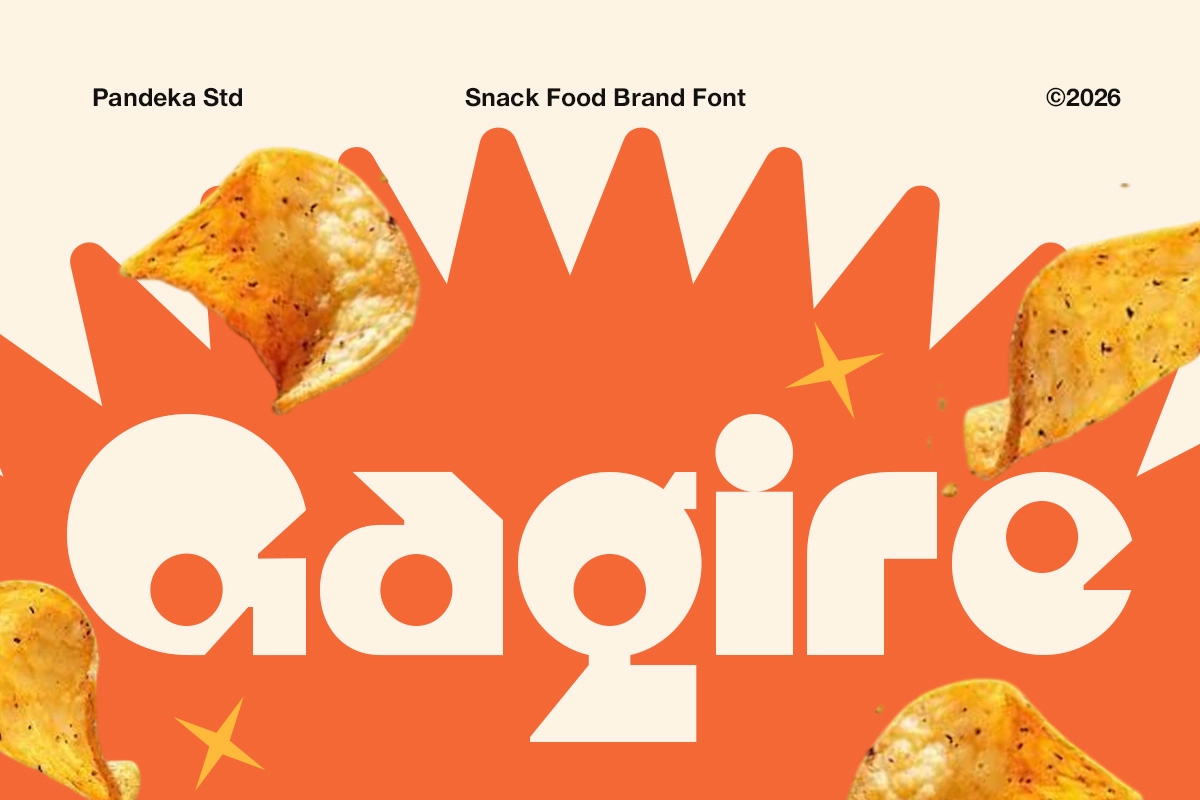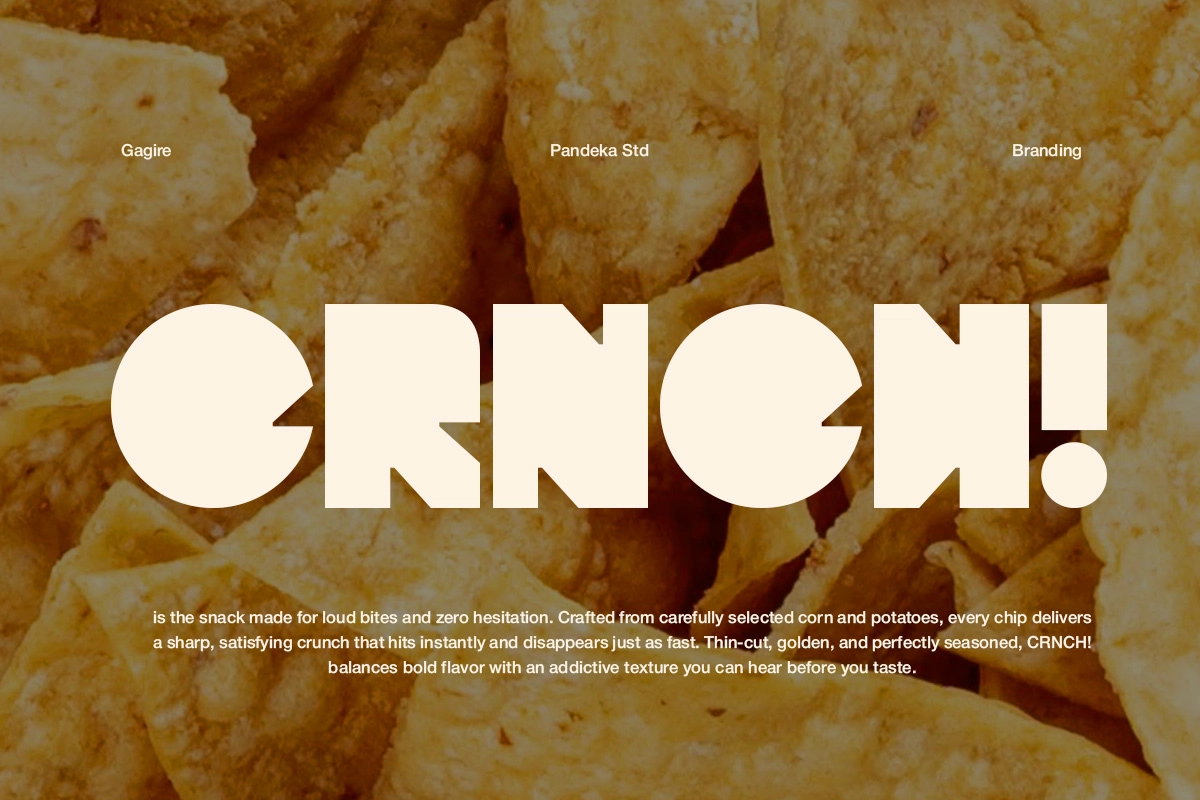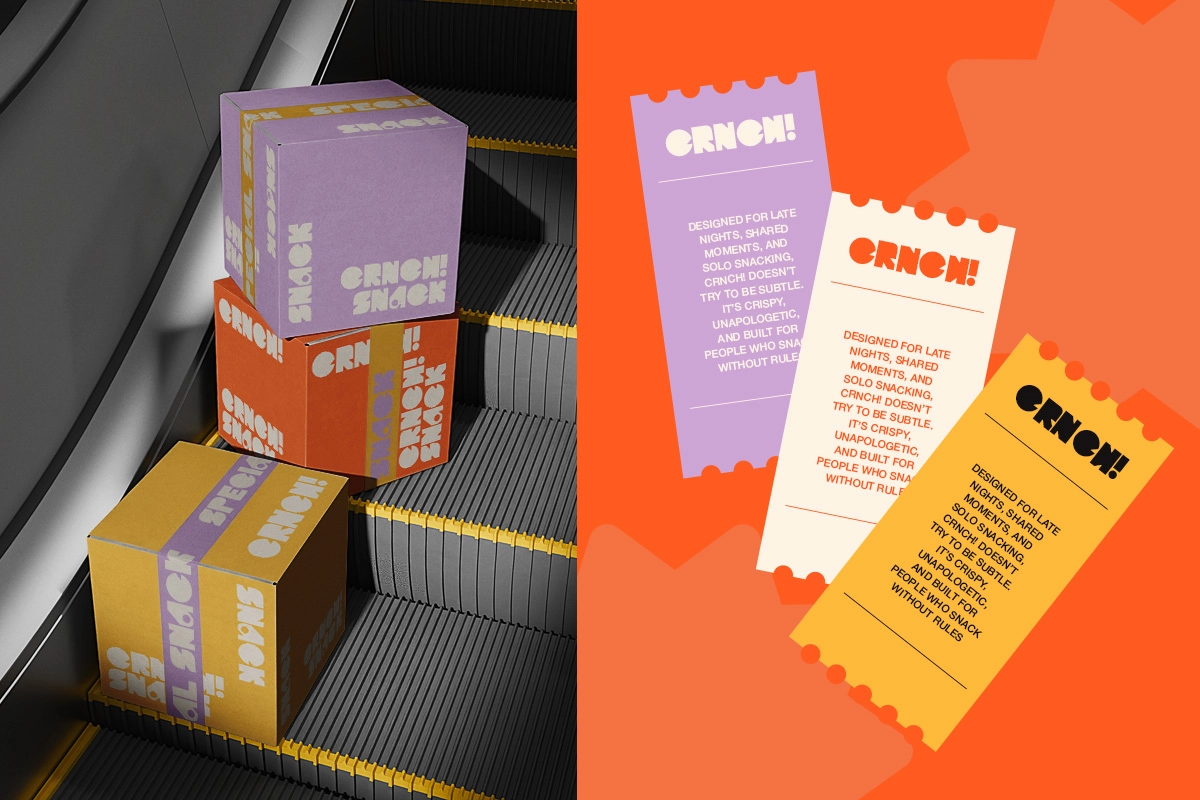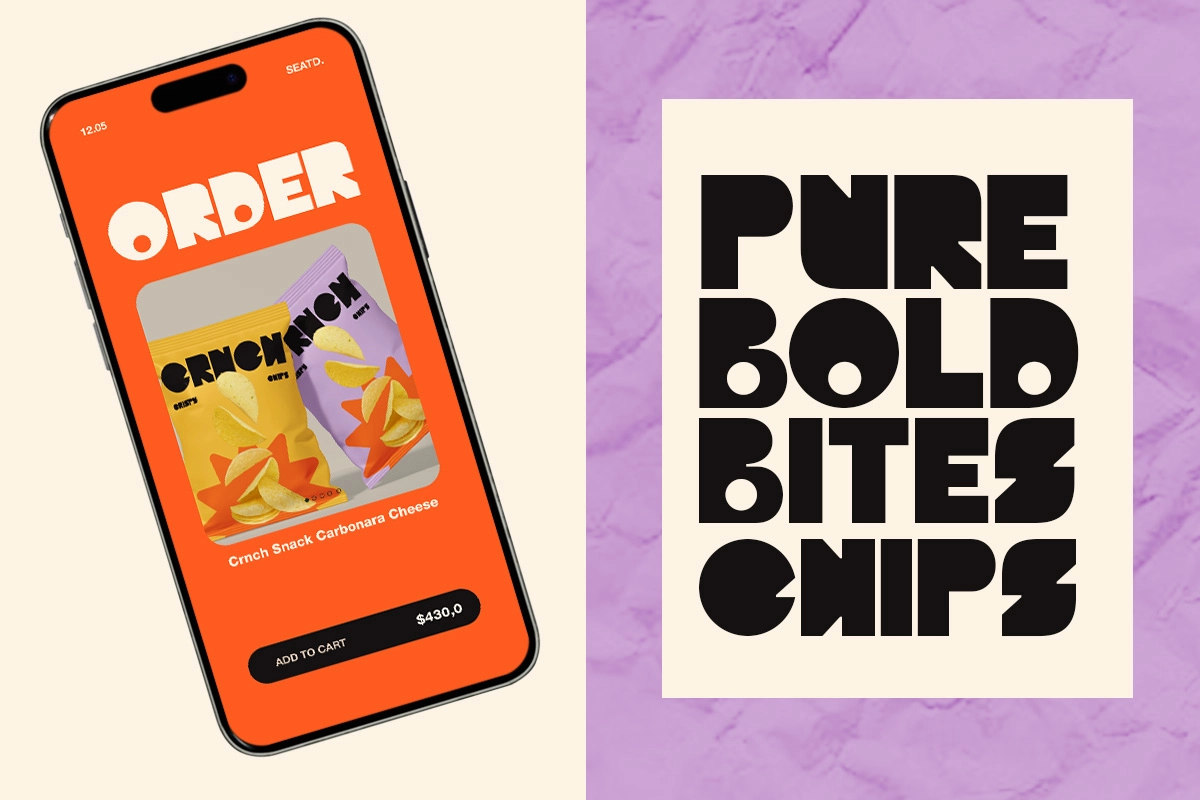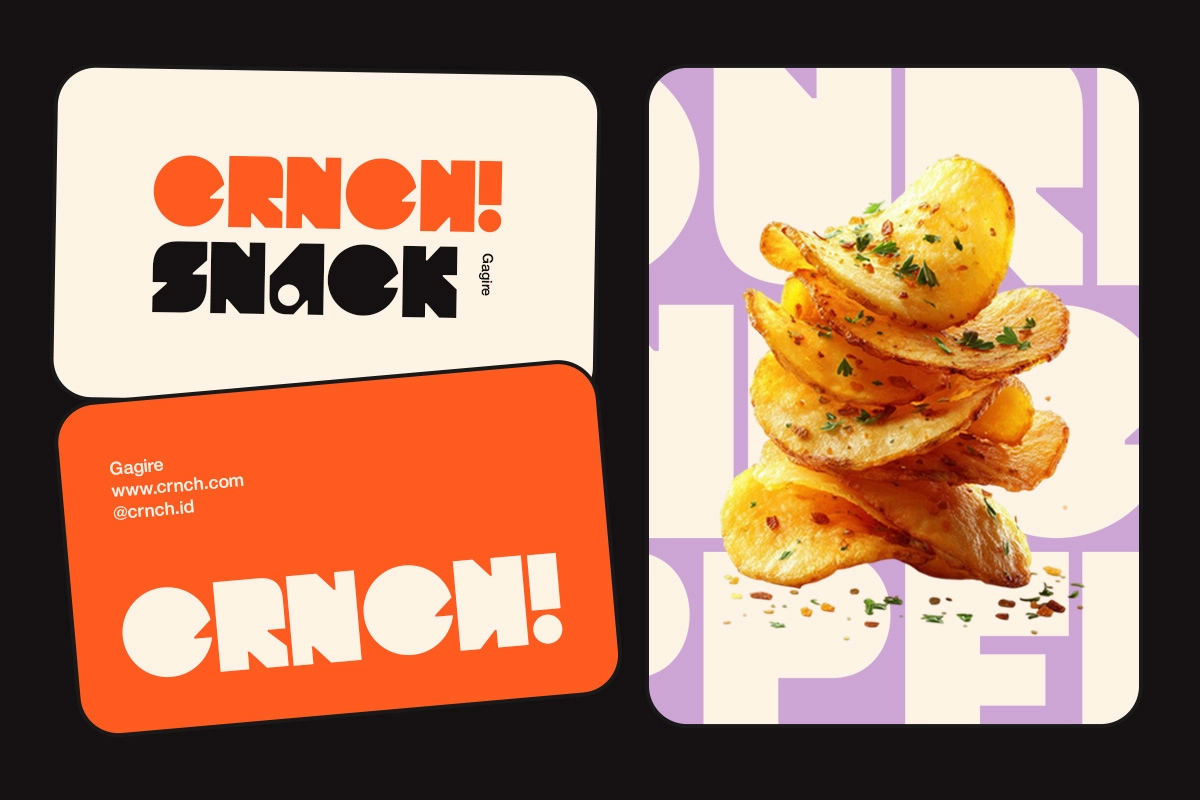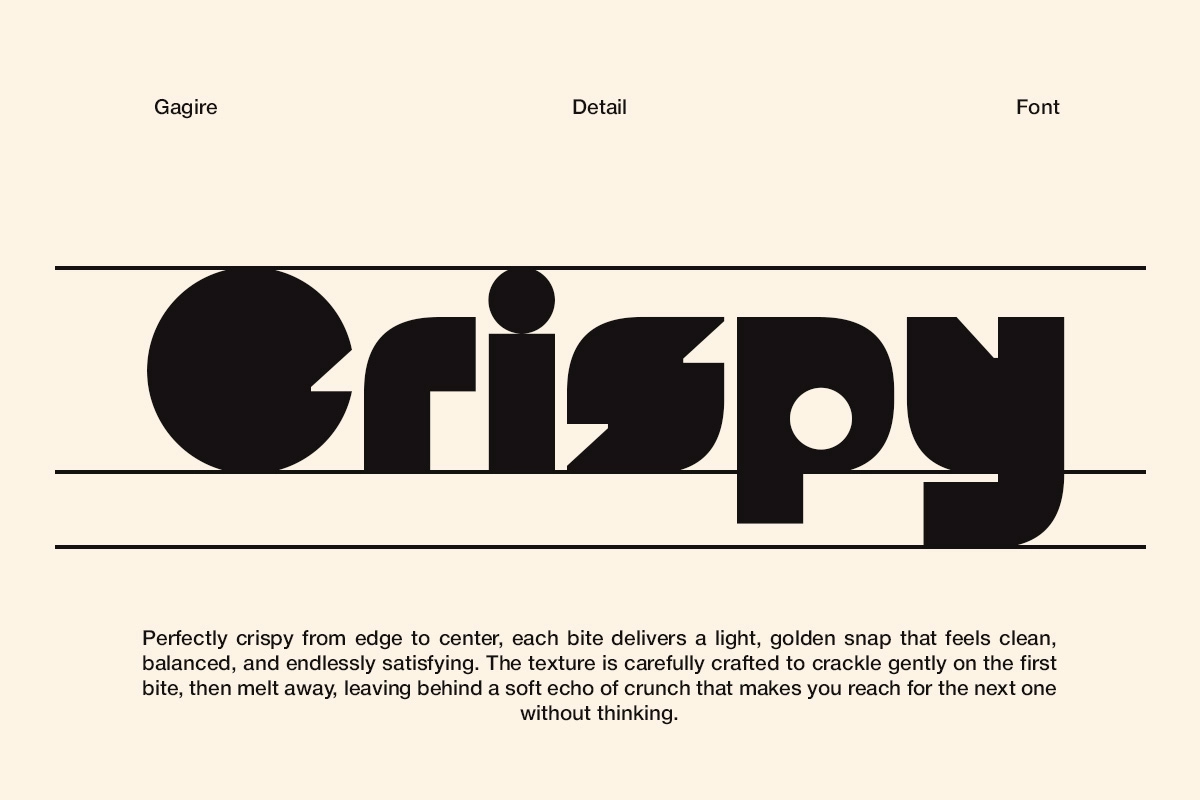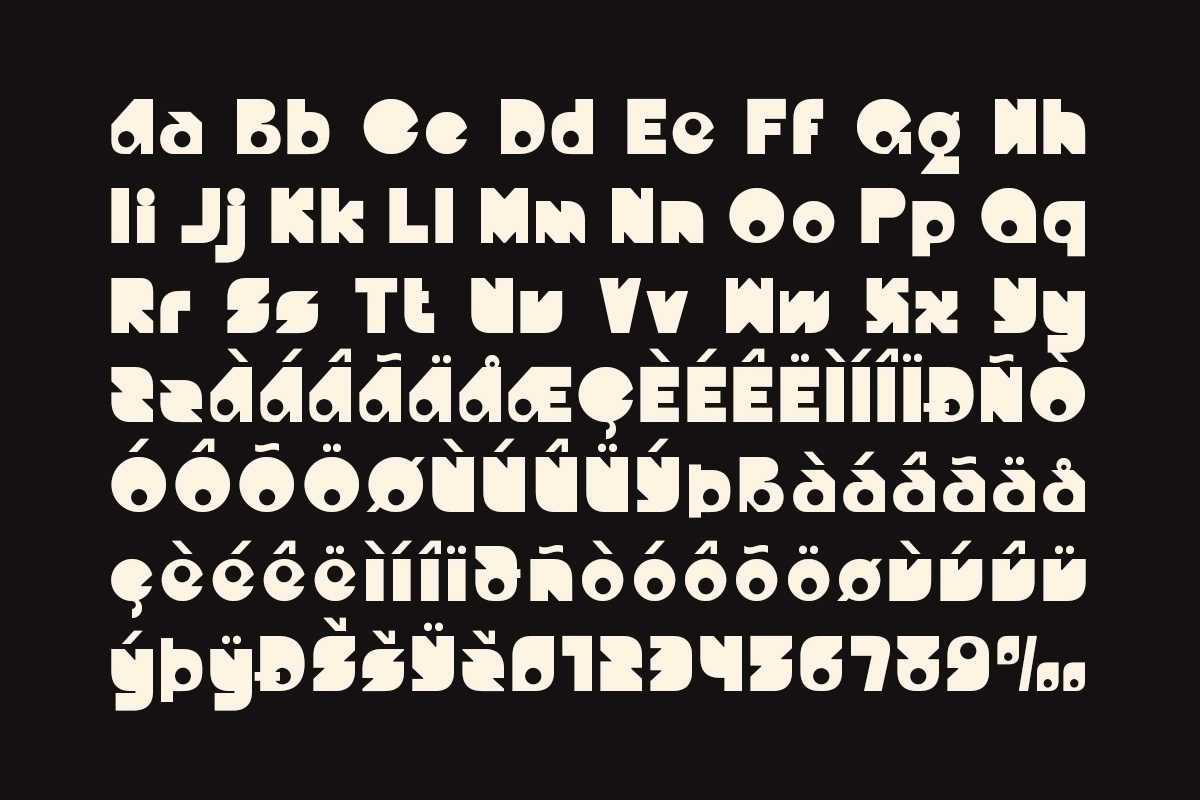
Gagire - Playful Chunky Food Font
Gagire
Gagire piles chunky, rounded shapes into a bubble display font, with circular counters and stacked terminals that snap together the way a chip logo or a candy wrapper would. T he forms carry a cheerful, slightly greasy energy — closer to a bag of crisps on a shelf than a clean corporate label.
Set at logo size, letters like the O and G lean on full circles for a bite-sized, edible feel; run across a headline, the rhythm stays loud without turning cluttered. Use it for snack food branding, packaging and labels, menus, poster and social ads, and youth-facing promotional graphics.